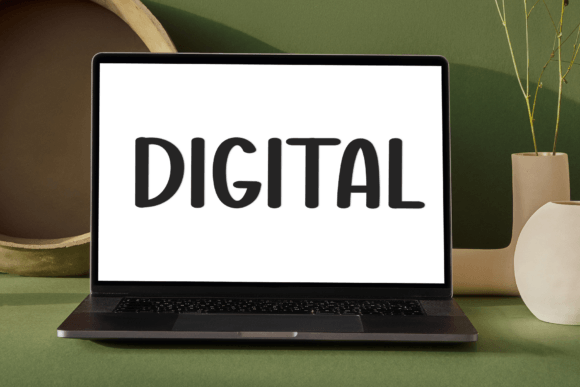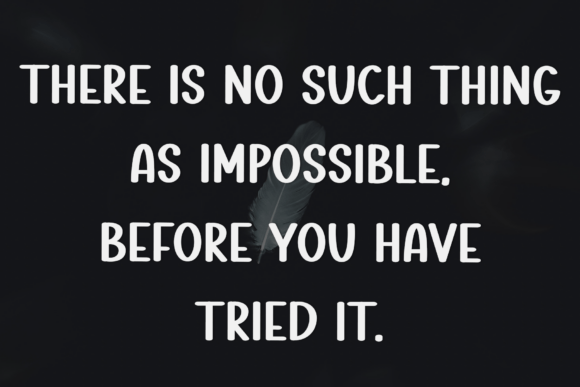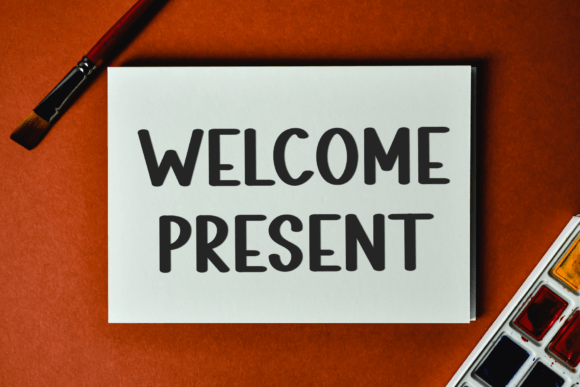
Introduction to Rainday Joyful Font
As designers, we’ve all had that moment when we’re searching for the perfect font to capture the essence of a project. Maybe it’s a holiday card, a gift tag, or a festive social media post. The search can be daunting, but what if I told you that there’s a font that embodies the spirit of the season and makes your creative process a joy? Say hello to the Rainday Joyful Font!
This high-quality typeface is a game-changer for designers looking for a unique and festive design resource. With its whimsical flair and decorative elements, it adds a touch of magic to your words. Whether you’re working on a free download or a paid project, the Rainday Joyful Font is sure to bring a smile to your face and your clients’. And the best part? It’s PUA encoded, making it easy to access all the amazing glyphs and ligatures.
Key Features of Rainday Joyful Font
- High-quality design resource ideal for creative projects requiring a unique and playful touch.
- Unique characteristics include a whimsical and dreamy feel, perfect for adding a touch of magic to any creative project.
- Easy to customize and manipulate, making it a valuable asset for designers seeking to add a personal touch to their work.
Honest Review: Rainday Joyful Font
I recently came across the Rainday Joyful Font, a free download that caught my attention with its beautiful, high-quality design. As a designer, I was excited to explore its possibilities for my next creative project.
- ✨ The Rainday Joyful Font has a transparent background, making it easy to combine with other design elements.
- ✨ The font is highly customizable, allowing for a range of styles and variations to suit different design needs.
- ✨ The design is modern and playful, perfect for adding a touch of whimsy to a design project.
- ⚠️ The font may not be suitable for formal or professional designs, as it has a more casual tone.
- ⚠️ Some users may find the font’s design too playful, making it difficult to use in more serious design contexts.
Overall, I was impressed with the Rainday Joyful Font’s high-quality design and versatility. While it may have some limitations, it’s a valuable resource for designers looking for a creative and modern font to add to their design repertoire.
Tips for Getting the Most Out of Rainday Joyful Font
For optimal results, use the Rainday Joyful Font on a transparent background to create a clean and modern design. Experiment with different font sizes and colors to add depth and visual interest to your creative project. Don’t forget to save your design as a high-quality image or document for easy sharing and editing.
Common Use Cases for Rainday Joyful Font
The Rainday Joyful Font is perfect for a variety of design projects, including social media graphics, blog posts, and marketing materials. Its playful and whimsical style makes it ideal for creative and artistic projects, and its transparent background allows for seamless integration with other design elements.
Yes, Rainday Joyful Font has a transparent background, which makes it perfect for use in creative projects where a clear background is required. The transparent background also allows you to easily combine the font with other design elements and create a seamless look.